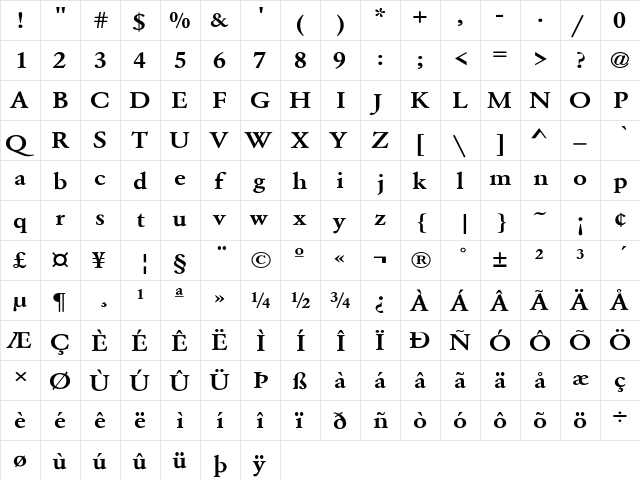
GaramondMediumExt-Normal Regular
Design Context for GaramondMediumExt-Normal Typeface
GaramondMediumExt-Normal takes a measured approach to typography — its balanced proportions and neutral character make it a reliable workhorse for both digital and print work.